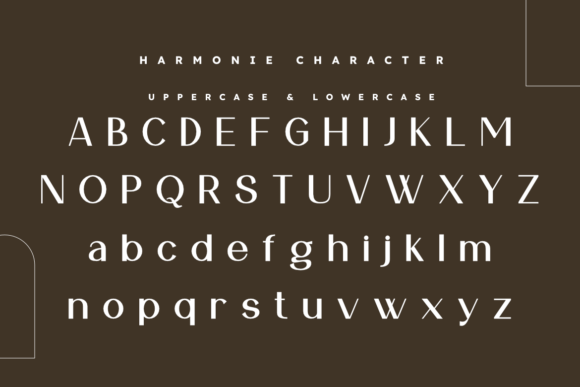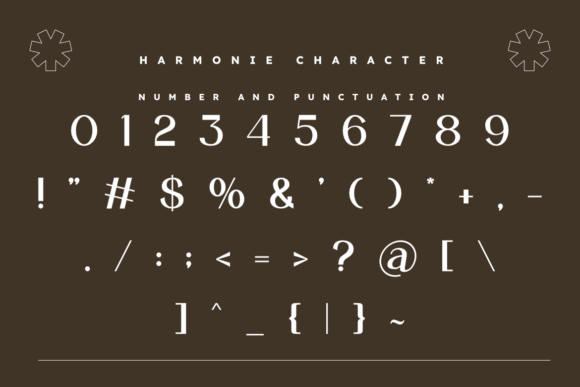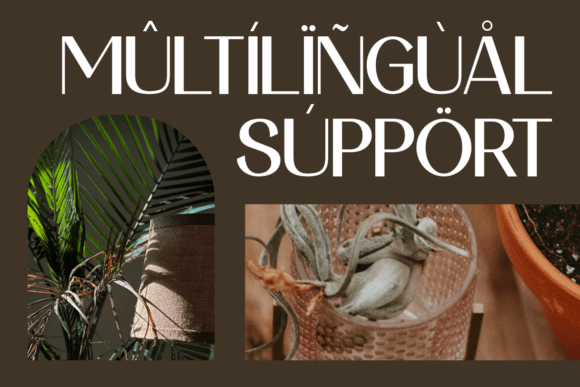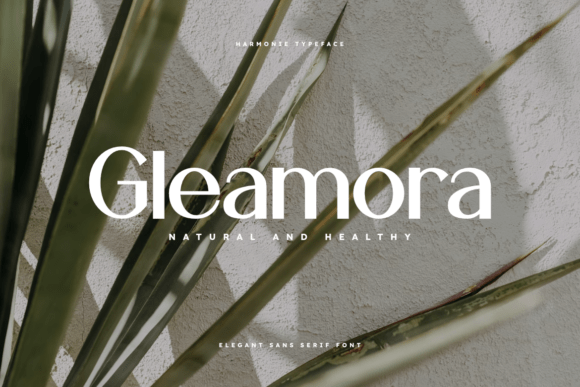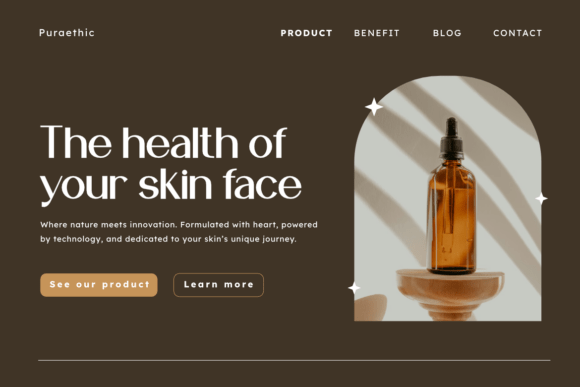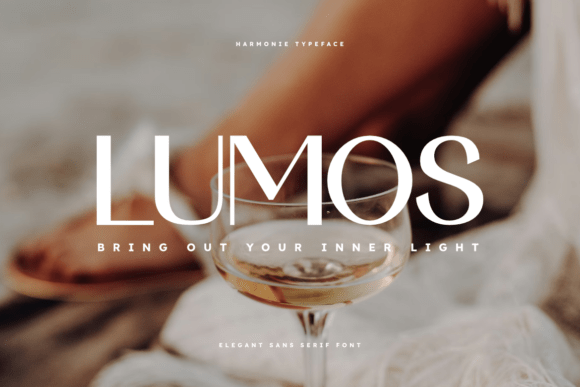
Introducing Harmonie Font: The Epitome of Modern Minimalism and Elegance
In the world of typography, a font can make or break the visual identity of a project. For designers and crafters seeking a typeface that exudes sophistication, balance, and a touch of class, Harmonie Font is an exceptional choice. This sans serif font masterfully blends modern minimalism with elegant, refined details, making it an essential addition to any designer’s toolkit.
The Design Philosophy Behind Harmonie
Harmonie is designed with a clear vision: to create a typeface that embodies the perfect harmony between modern simplicity and timeless elegance. Its clean lines and structured form ensure excellent readability across various media, from luxury brand identities to high-end magazine layouts and minimalist digital content. The font’s design philosophy revolves around balance and versatility, making it suitable for a wide range of applications.
Key Features of Harmonie Font
• Sophisticated Sans Serif: Harmonie boasts a sans serif design that looks modern and clean, perfect for projects that require a contemporary aesthetic.
• Elegant Details: Despite its minimalist approach, Harmonie includes subtle, refined details that add a layer of sophistication and elegance to any text.
• Excellent Readability: The font’s harmonious structure and balanced design ensure that it remains highly readable, even at smaller sizes.
• Versatility: Whether you’re working on a luxury brand identity, a magazine layout, or digital content, Harmonie adapts seamlessly to various design needs.
• Timeless Aesthetic: Unlike trends that fade over time, Harmonie’s classic design ensures that your projects will remain visually appealing for years to come.
Applications of Harmonie Font
The versatility of Harmonie makes it suitable for a multitude of design projects. Here are some ideal applications:
• Luxury Brand Identity: Use Harmonie to create a sophisticated and elegant brand image that communicates high-end quality and refinement.
• High-End Magazine Layouts: The font’s readability and aesthetic make it perfect for magazine titles, headings, and body text, adding a touch of class to your publication.
• Minimalist Digital Content: For digital platforms, Harmonie offers a clean and modern look that enhances user experience and engagement.
• Web Design: Implement Harmonie in web design to provide a seamless and elegant reading experience for users.
• Print Materials: From brochures and business cards to posters and flyers, Harmonie elevates any print material with its sophisticated charm.
Why Choose Harmonie Font?
In a sea of typefaces, Harmonie stands out for several reasons:
• Unique Blend of Styles: It combines the simplicity of modern sans serif fonts with the elegance of traditional typefaces.
• High Versatility: Its adaptability makes it a go-to font for various projects, saving designers time and effort.
• Focus on Readability: Harmonie ensures that your message is conveyed clearly and effectively, making it ideal for both digital and print media.
• Timeless Design: The font’s classic appeal ensures that your designs will remain relevant and stylish over time.
Harmonie Font is a powerful tool for designers and crafters looking to imbue their projects with a sense of sophistication, elegance, and modernity. Its unique blend of minimalism and refined details, coupled with its versatility and focus on readability, makes it an invaluable asset in any designer’s toolkit. Whether you’re crafting a luxury brand identity, designing a high-end magazine, or creating minimalist digital content, Harmonie is poised to elevate your work to new heights of aesthetic excellence.